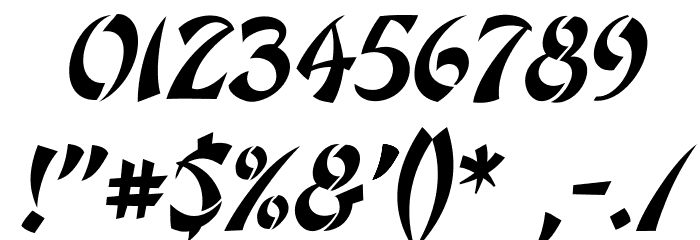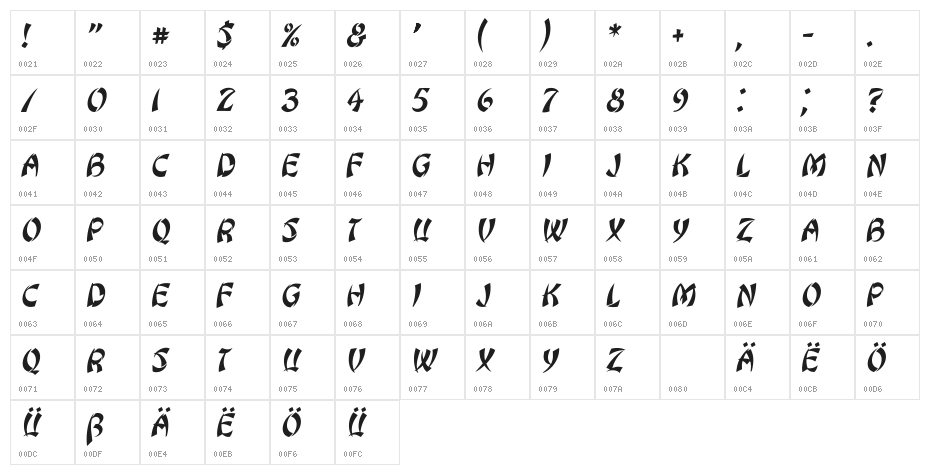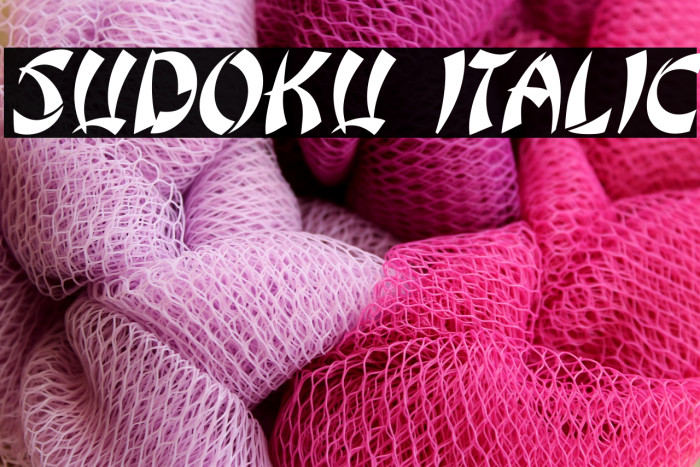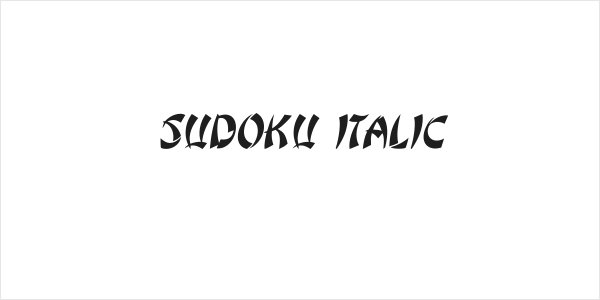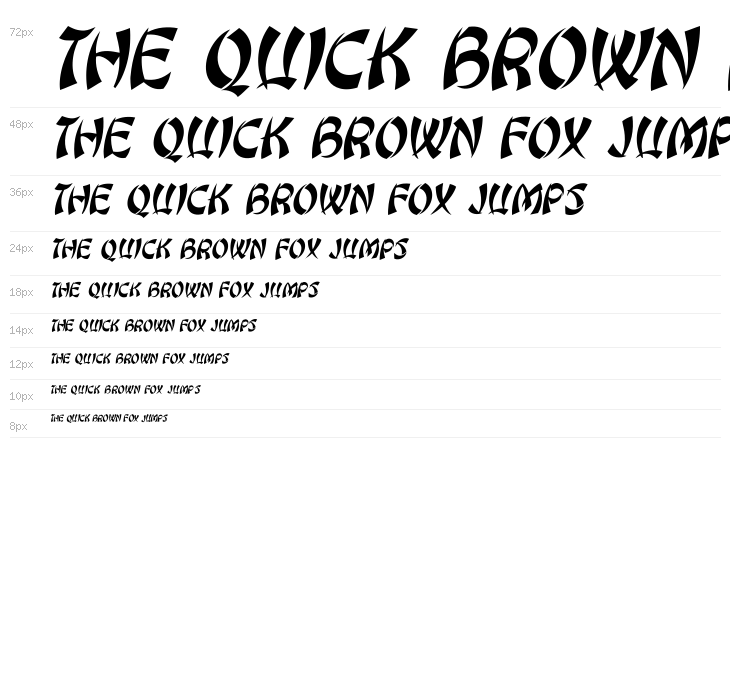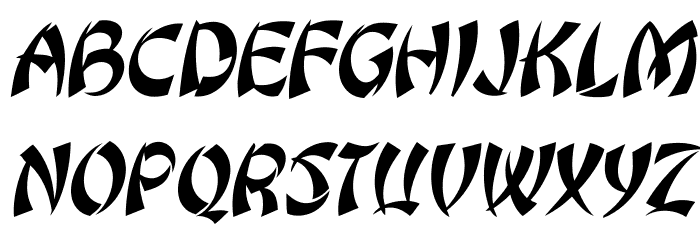
Sudoku Italic Font
Sudoku Italic Description
This font features a bold and dynamic style with a strong italic slant, giving it a sense of movement and energy. The characters are thick and robust, with sharp, angular edges that create a striking visual impact. The uppercase and lowercase letters maintain a consistent style, with the lowercase letters slightly smaller but equally bold. The numbers and special characters are designed to match the overall aesthetic, ensuring a cohesive look across all elements. The font's unique design makes it stand out, with a modern and slightly futuristic feel. Its boldness and distinctiveness make it suitable for attention-grabbing headlines or logos.